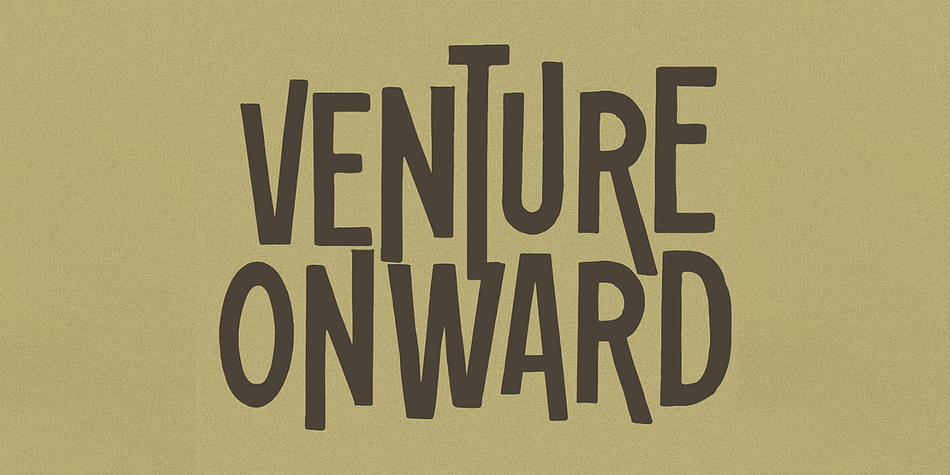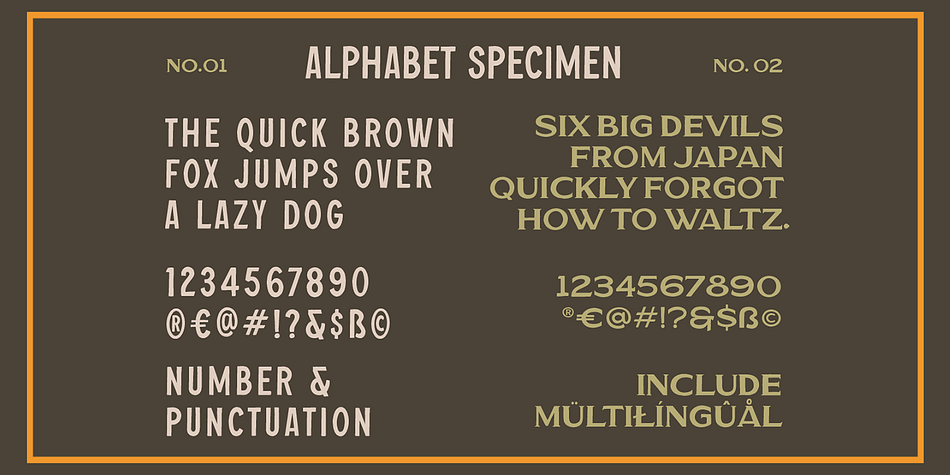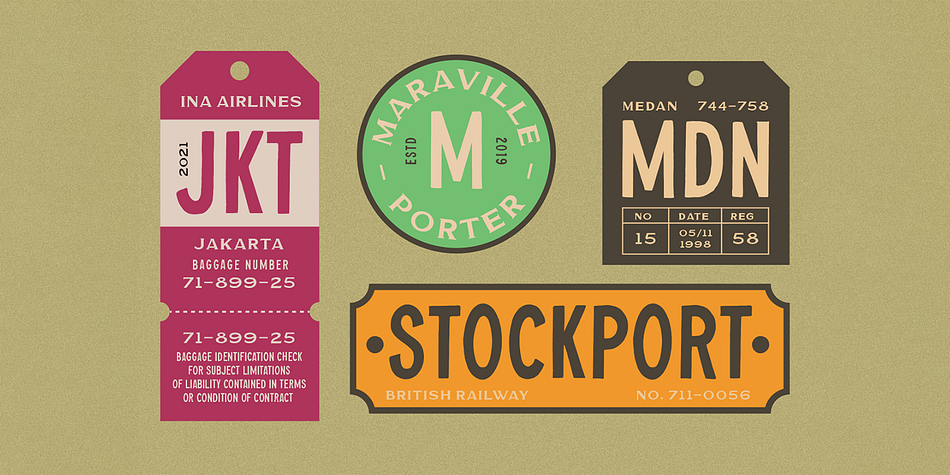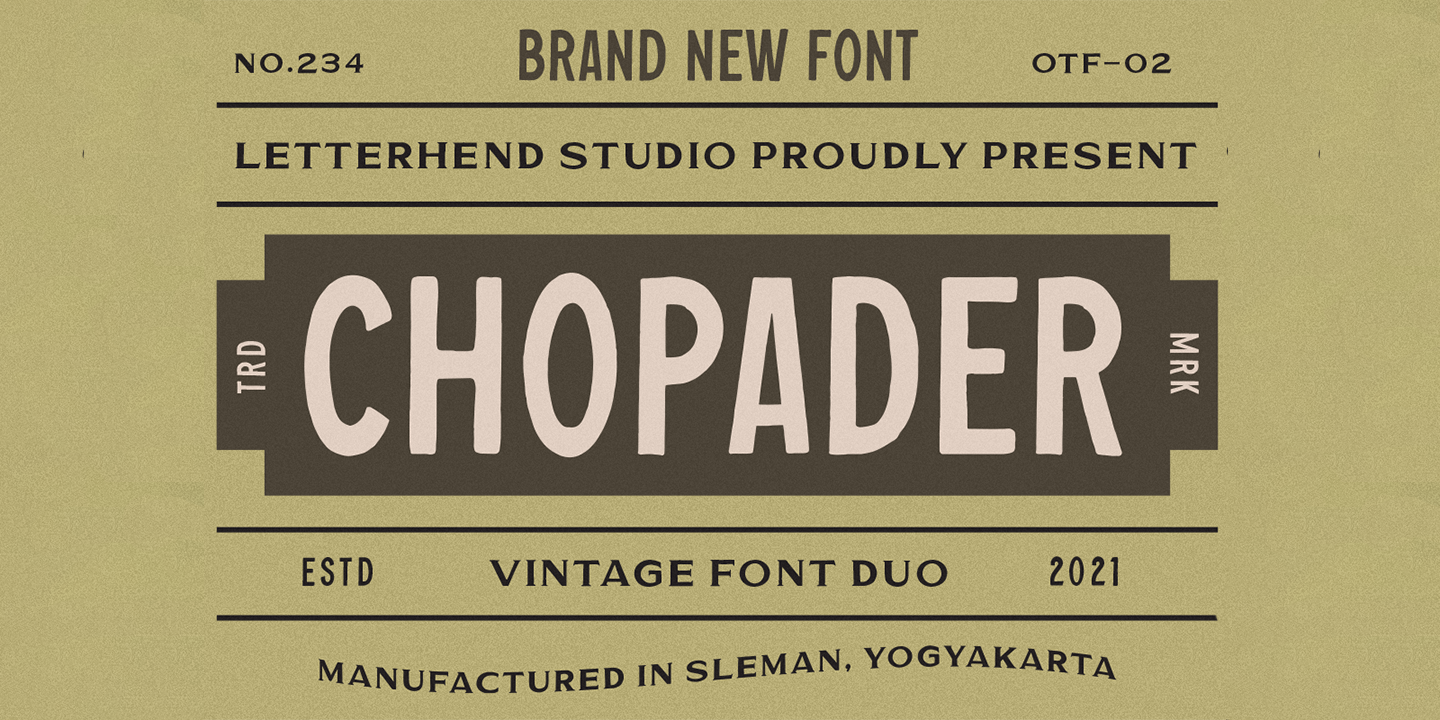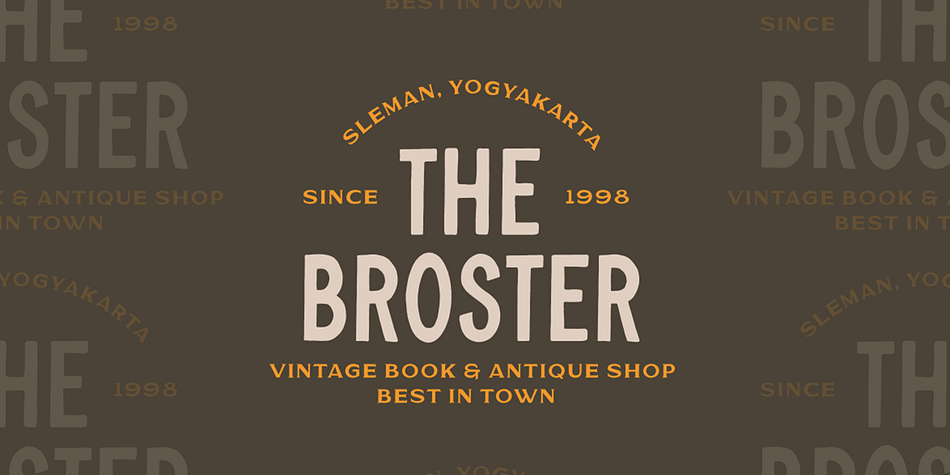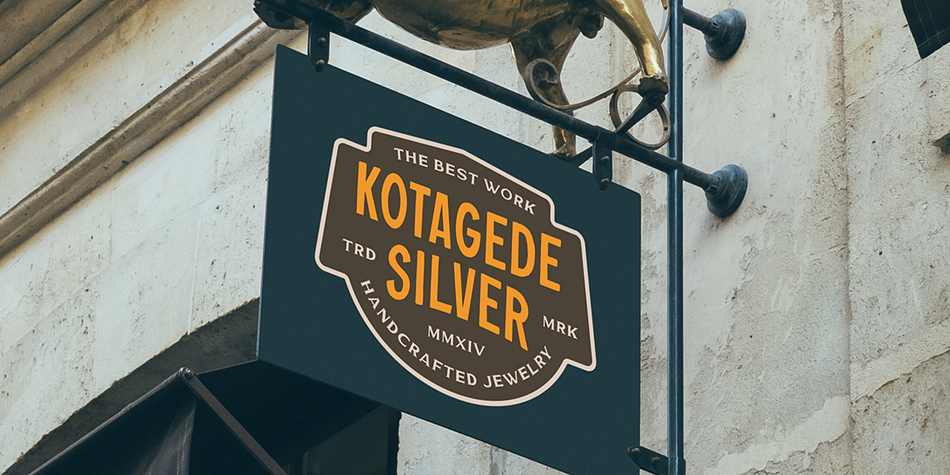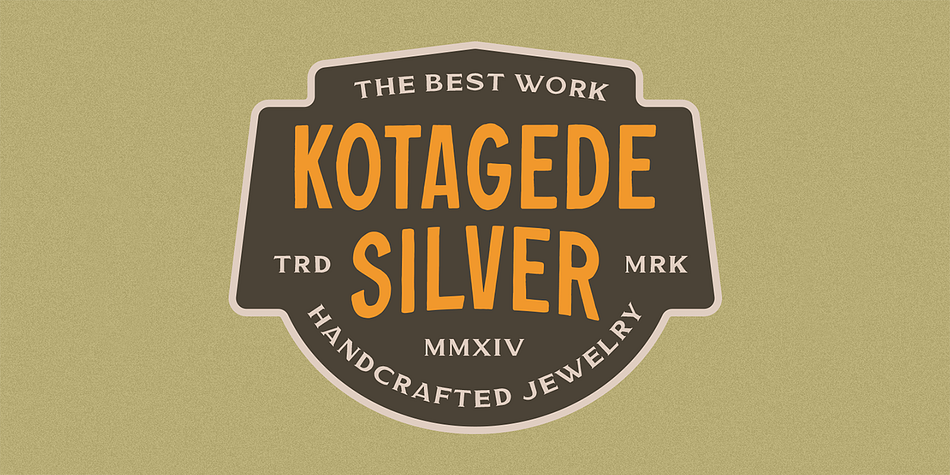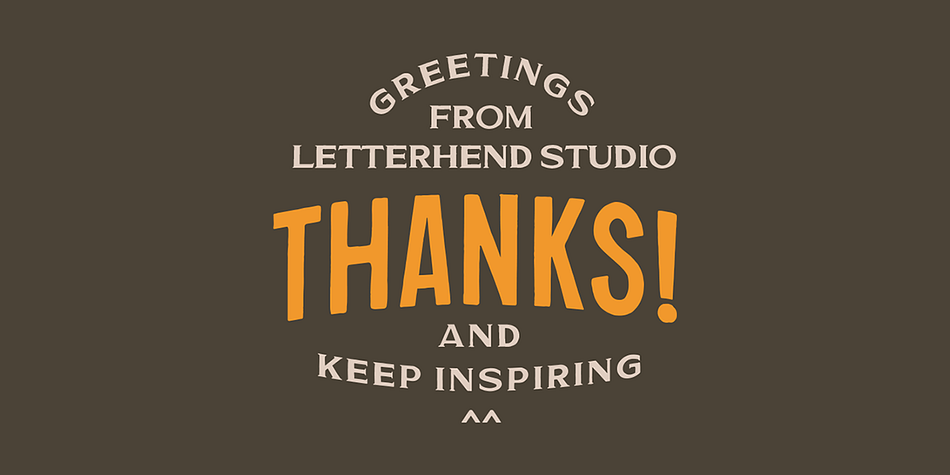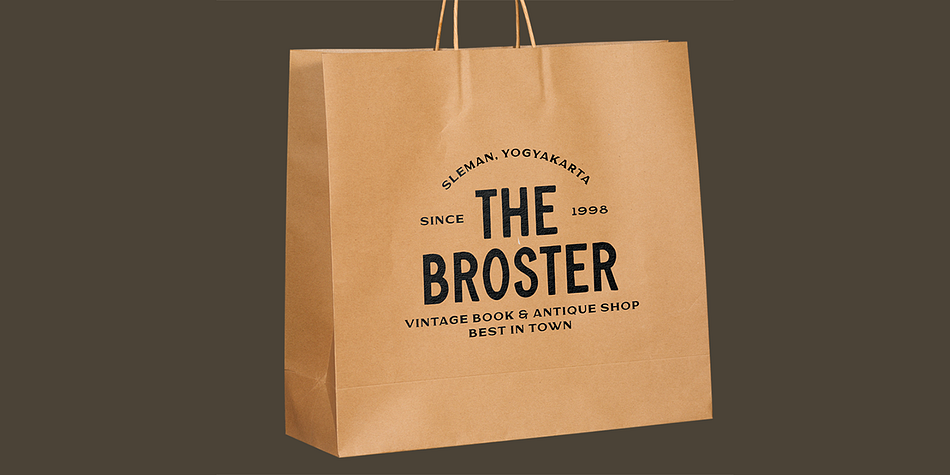
Designed by Hendry Juanda, Chopader is a display, display sans and display serif font family. This typeface has two styles and was published by Letterhend Studio.
Introducing, Chopader - a vintage sans serif font duo. Inspired by 50s 60s signages, this font made to bring back the good ol’ days. This type of font perfectly made to be applied especially in logo, headline, signage and the other various formal forms such as invitations, labels, logos, magazines, books, greeting / wedding cards, packaging, fashion, make up, stationery, novels, labels or any type of advertising purpose.